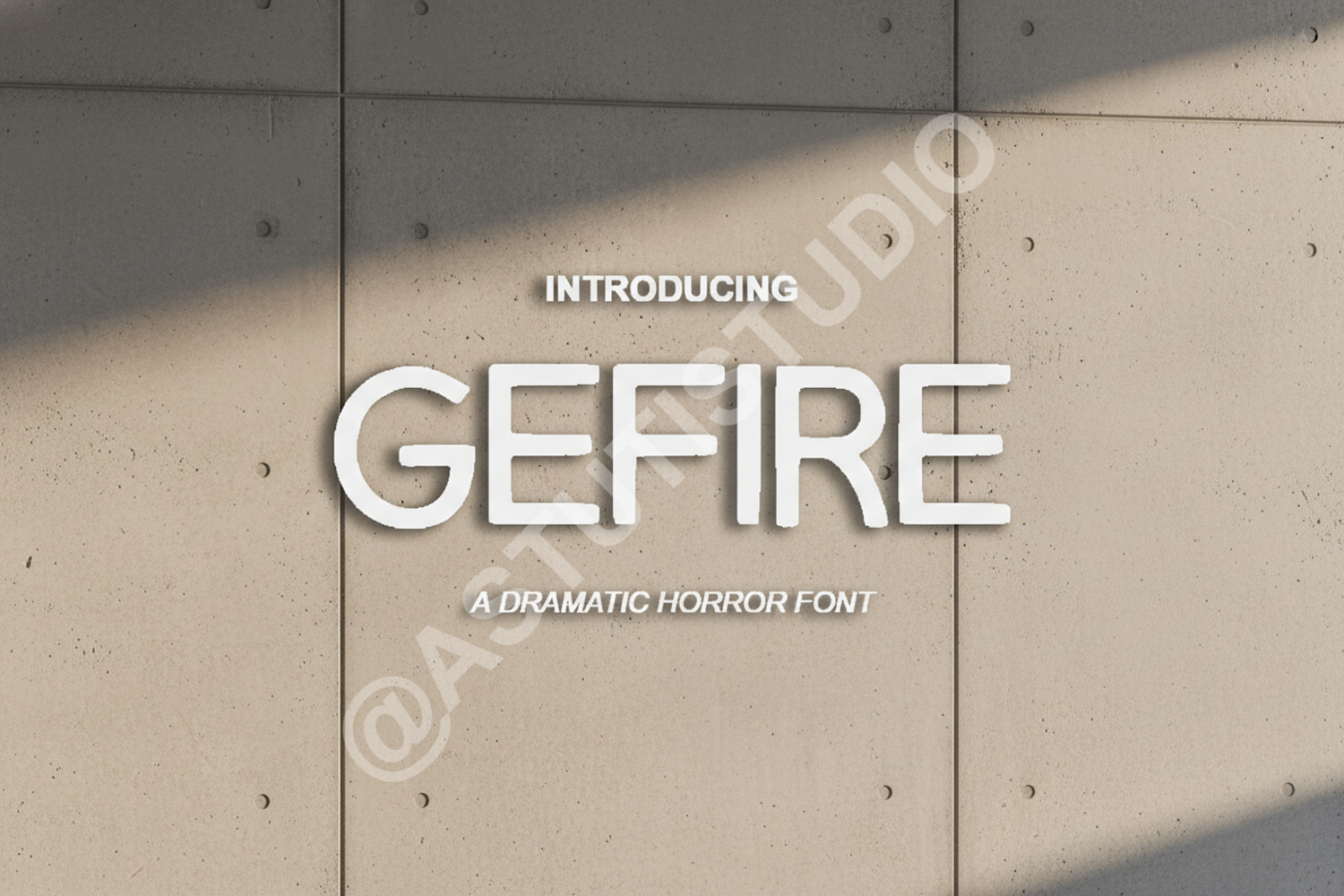
Gefire - Modern Elegant Serif Typeface
Gefire
Introduction:
Elevate your creative projects with Gefire, a premium serif typeface that blends timeless elegance with modern sophistication. Meticulously crafted for designers who demand excellence, Gefire offers a clean and balanced aesthetic that commands attention while remaining highly legible. Whether you are working on a luxury brand identity or a minimalist editorial layout, this font provides the versatility needed to make your work stand out.
- Standard Ligatures and Alternates
- Comprehensive Multilingual Support
Optimized Use Cases:
- High-End Branding and Identity: Create memorable logos and brand marks that exude luxury.
- Wedding Stationery: Perfect for elegant invitations, save-the-dates, and place cards.
- Editorial Design: Ideal for magazine headlines, book covers, and sophisticated layouts.
- Social Media Graphics: Enhance your digital presence with professional and stylish typography.
- Product Packaging: Add a touch of class to premium product labels and boxes.